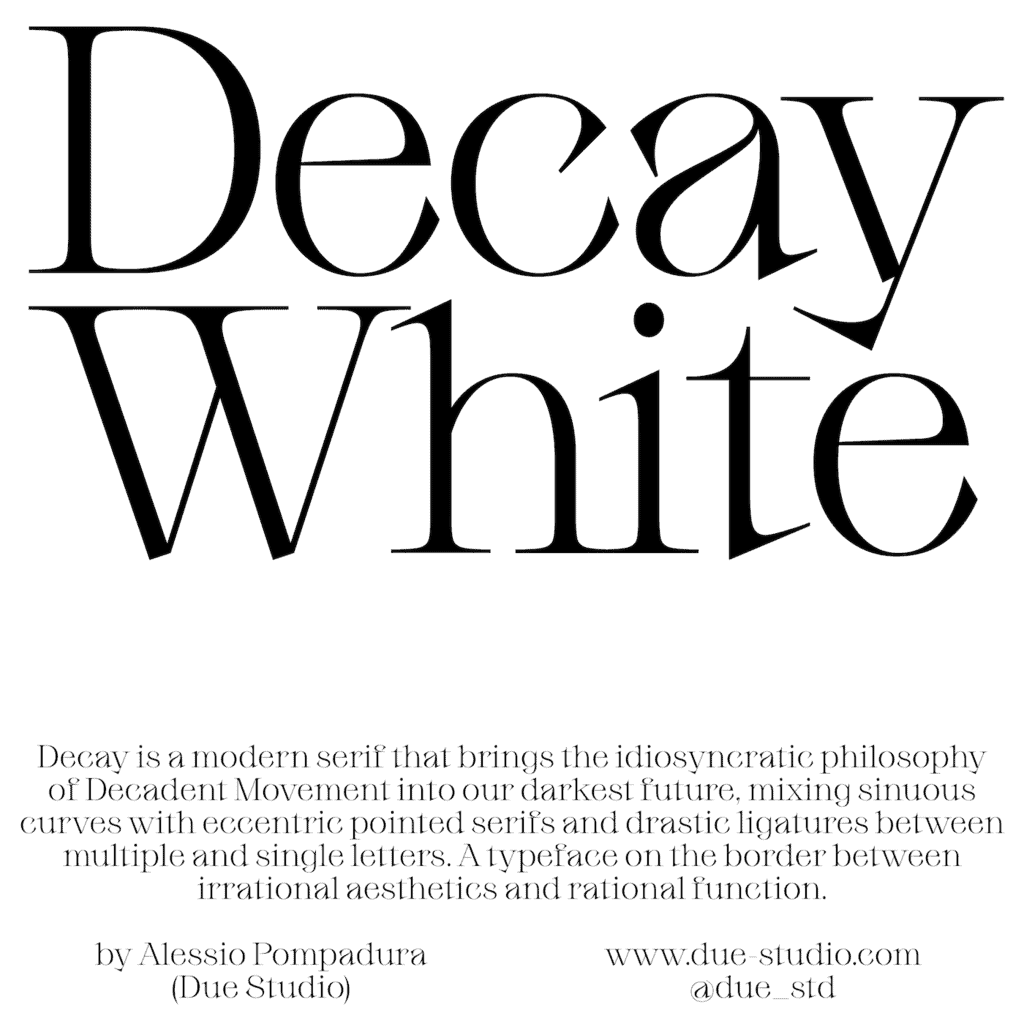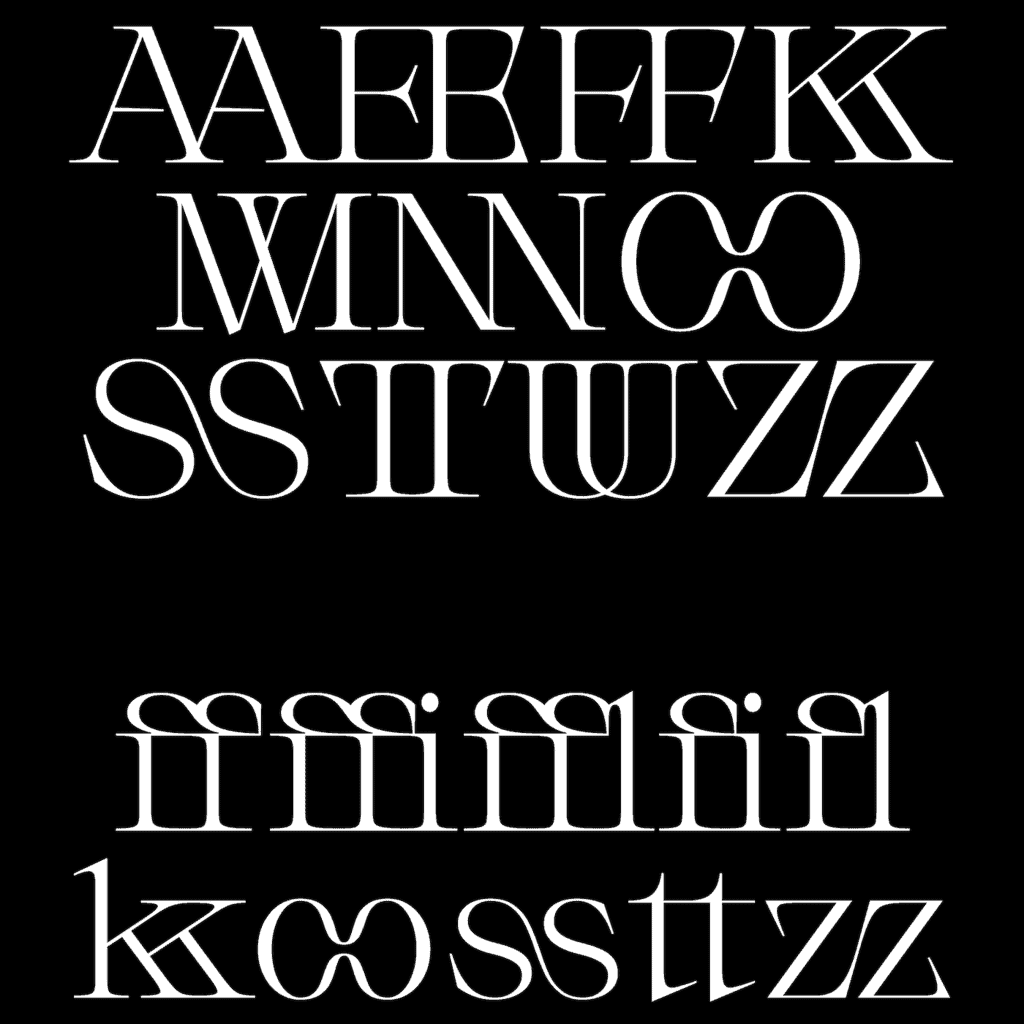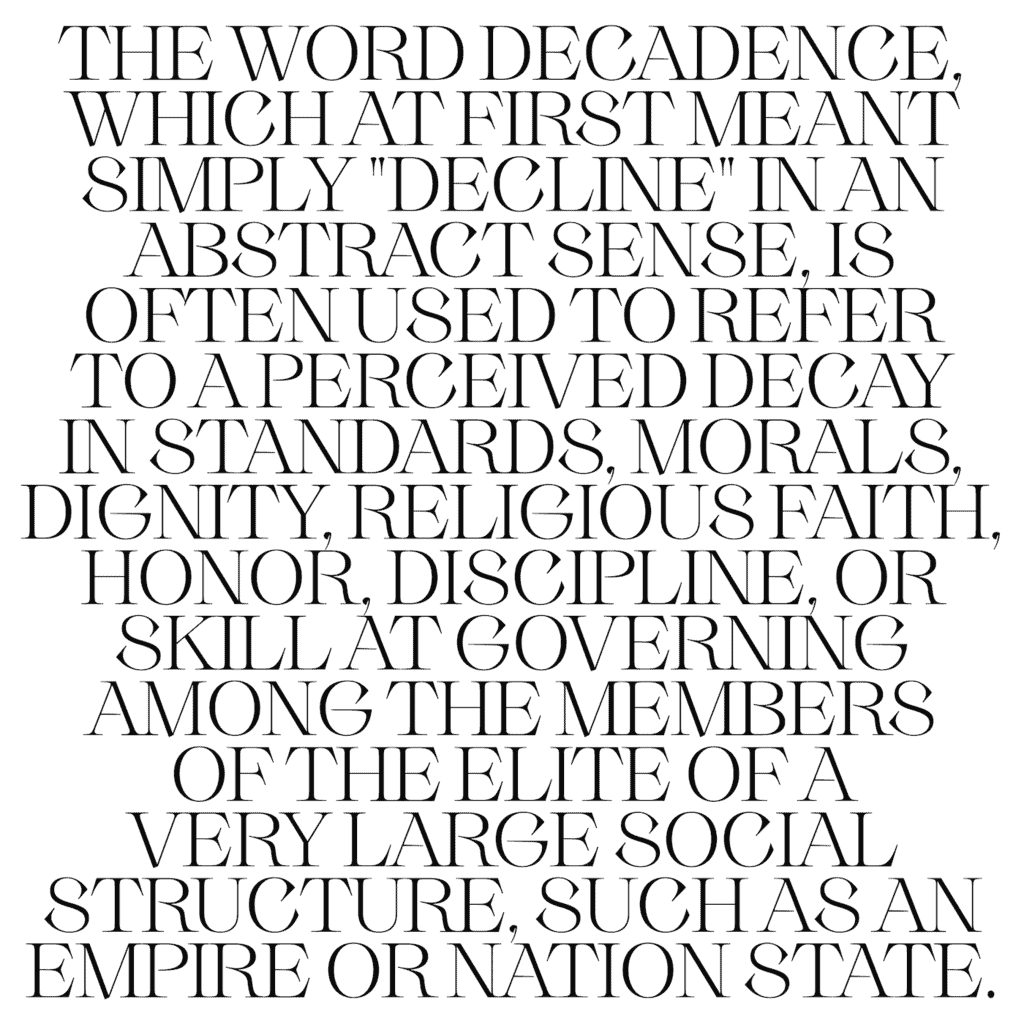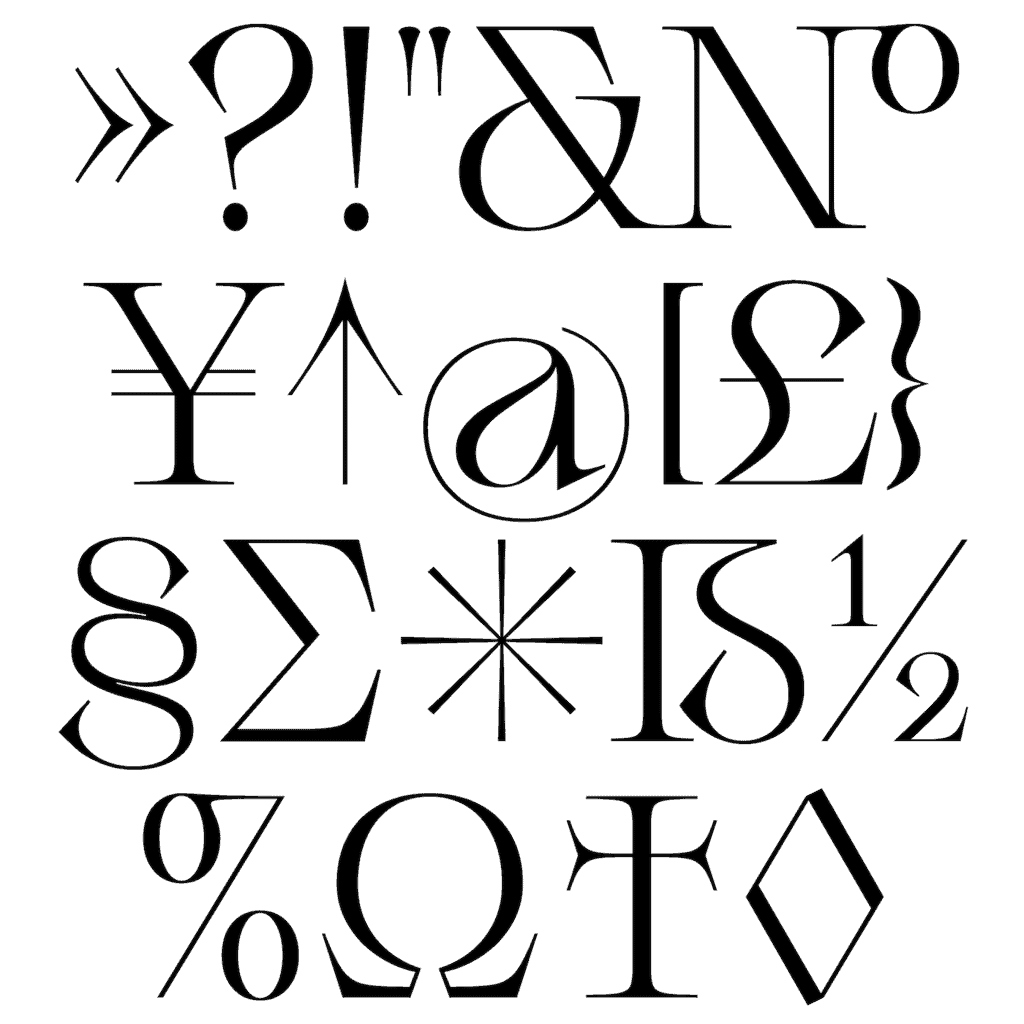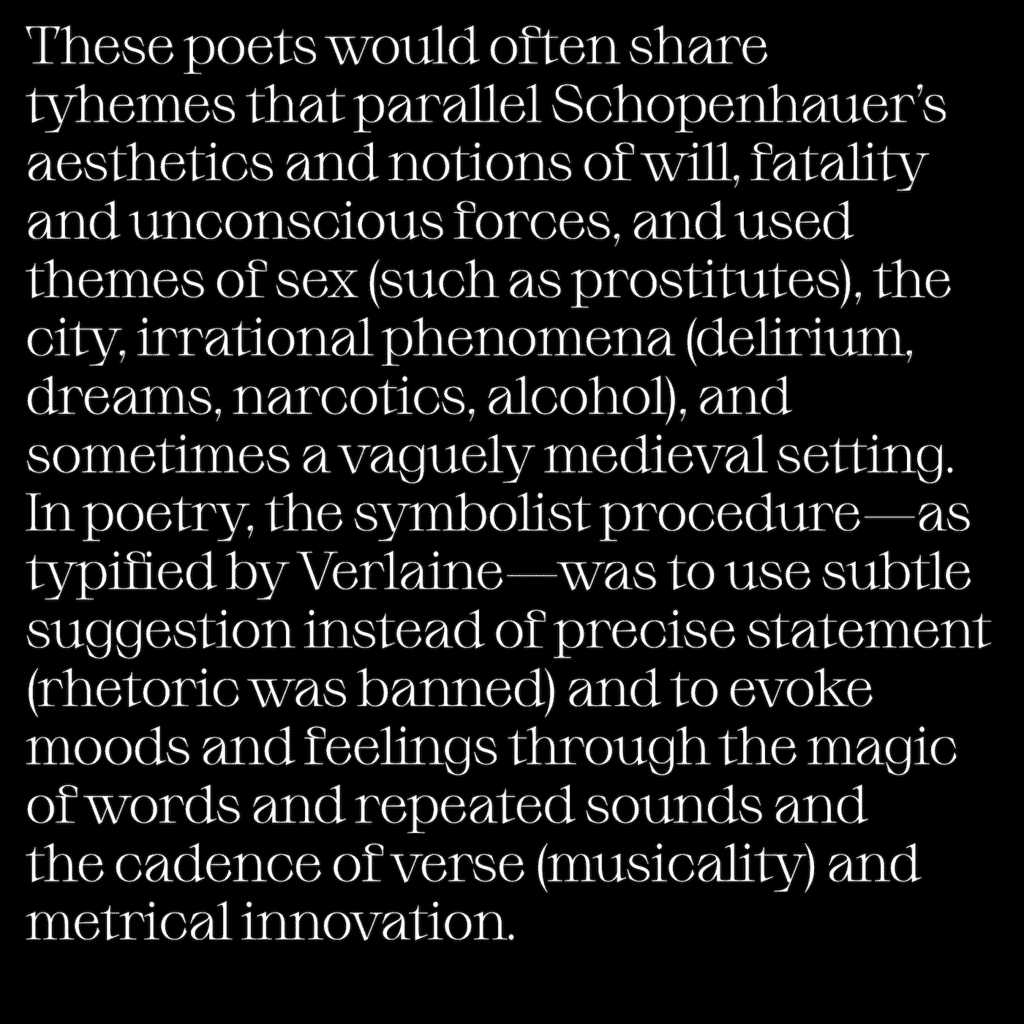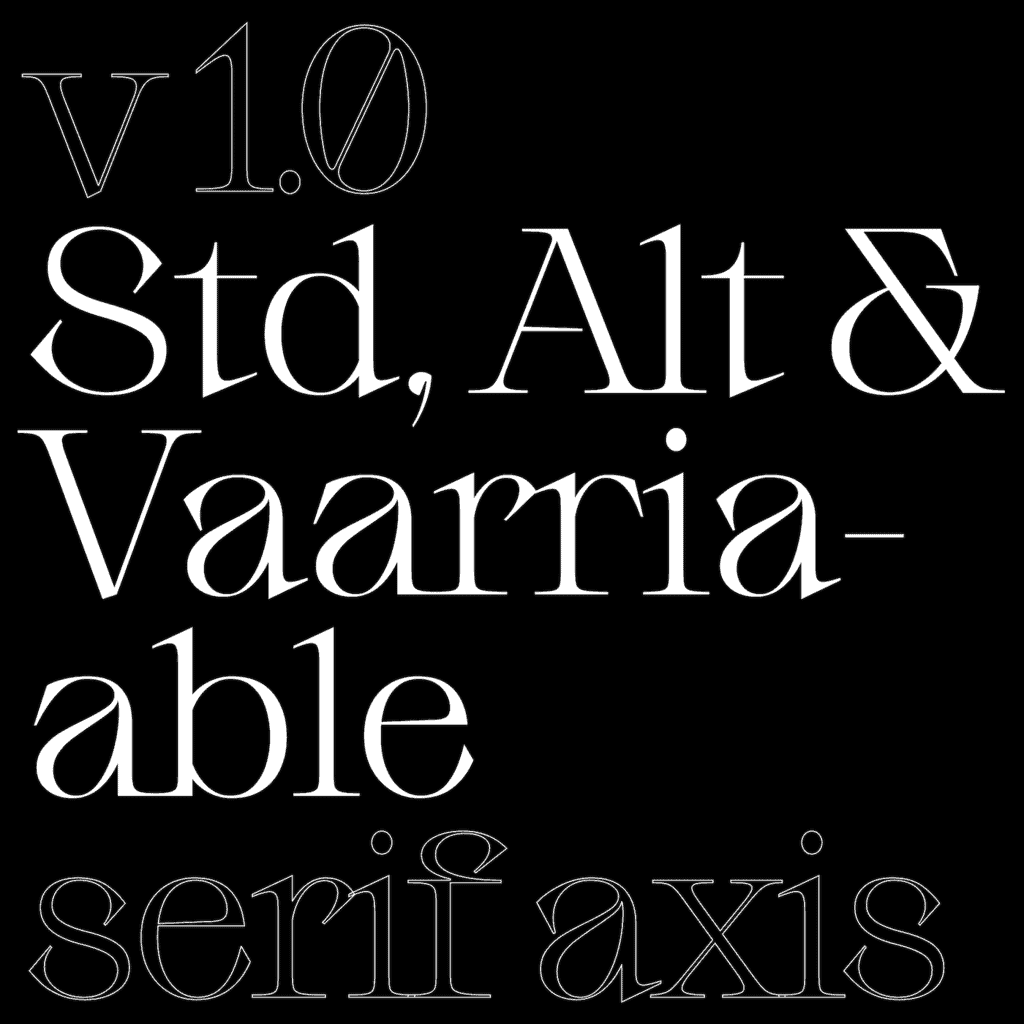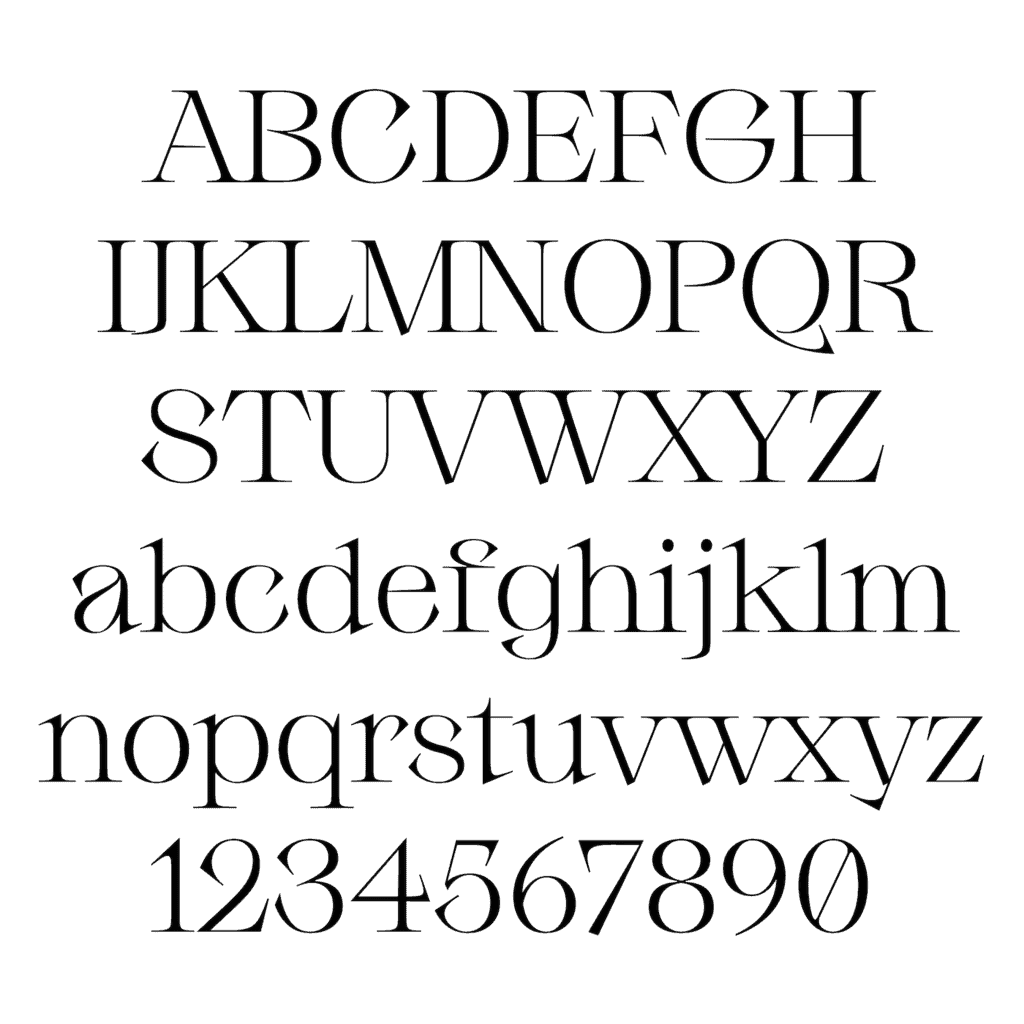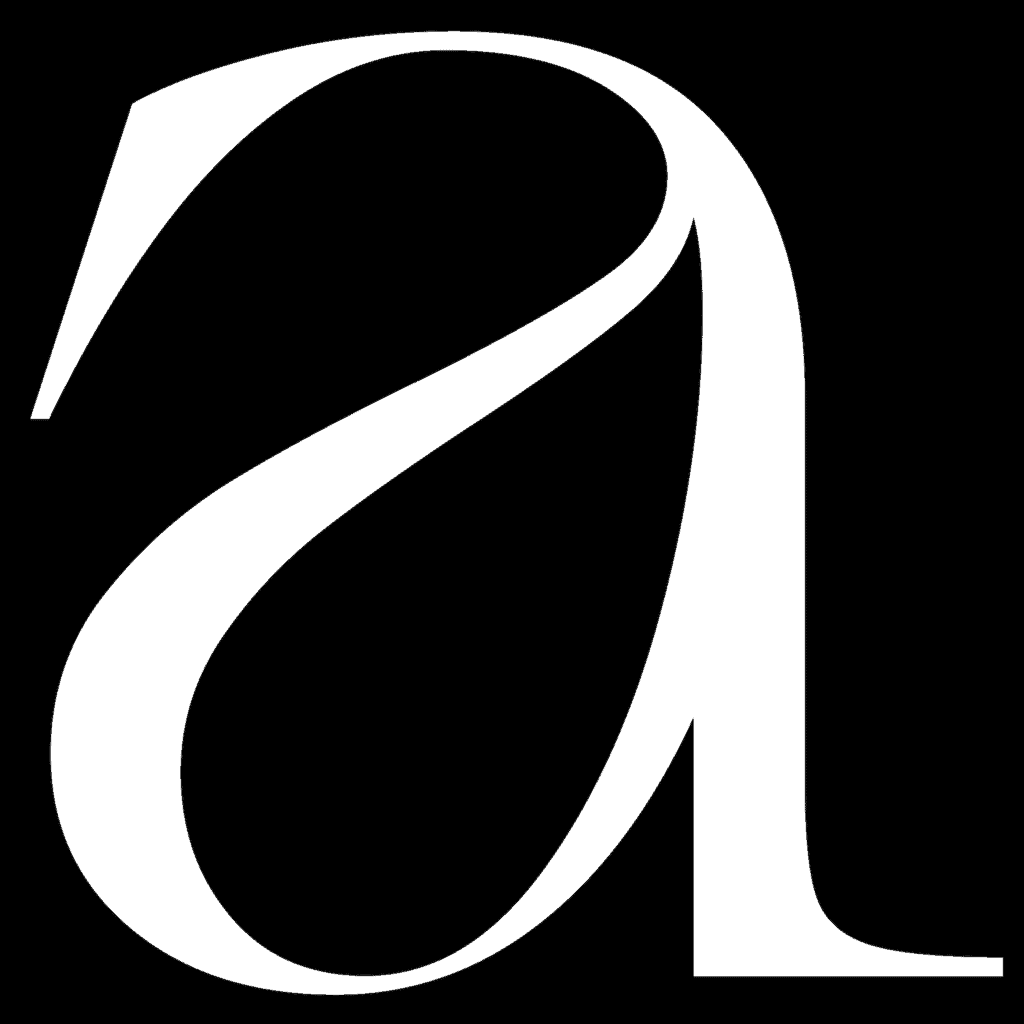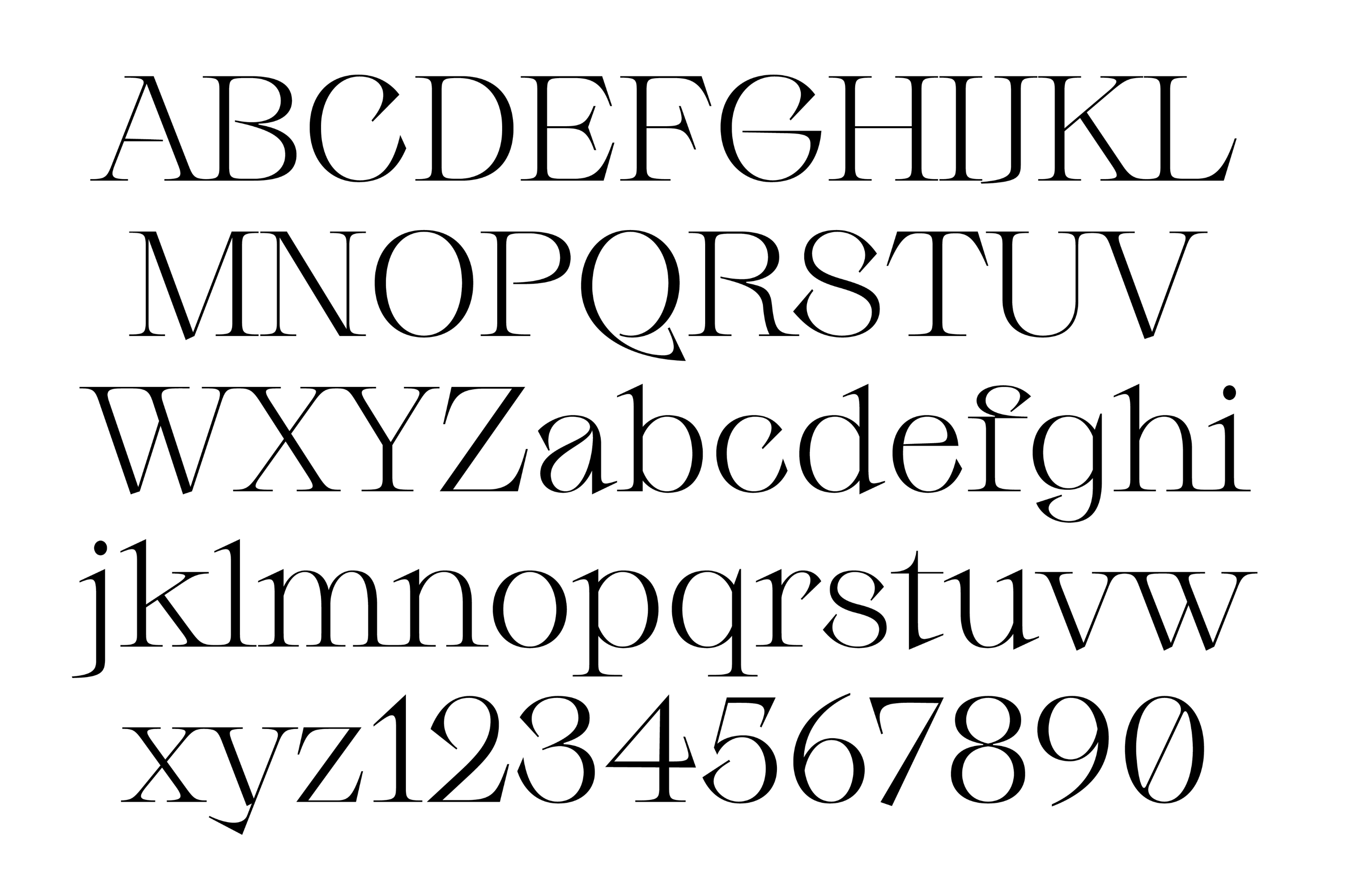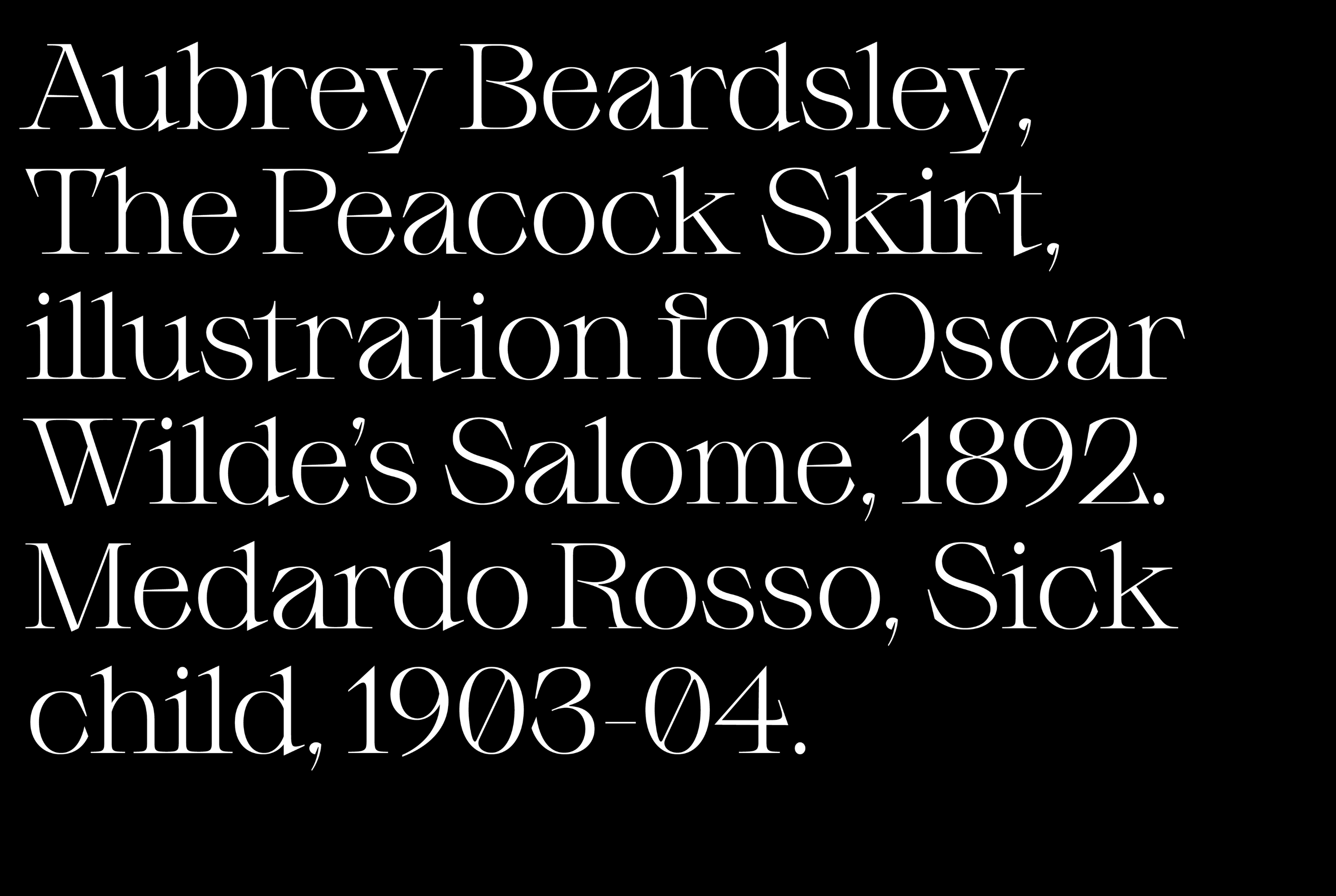
Decay White
Due Studio
Decay is a modern serif typeface that blurs the line between irrational aesthetics and functional design. Inspired by the philosophy of the Decadent Movement, Decay merges sinuous curves with eccentric pointed serifs, offering dramatic ligatures that enhance both single and multiple-letter combinations.
The inaugural release, Decay White (v1.0), features one weight and two serif cut styles (Std and Alt), alongside a variable font option that allows precise control over serif angles. Its dynamic contrasts make it ideal for impactful display texts, while its clarity ensures readability even in medium to small sizes.
Decay embodies a unique blend of artistic expression and practicality, making it suitable for a wide range of design applications.
- Total glyph set: 450+
- Support Latin Extended-A
- Contextual Alternates
- Case-Sensitive Forms
- Ligatures
- Fractions
- Localised Forms
- Stylistic Alternates